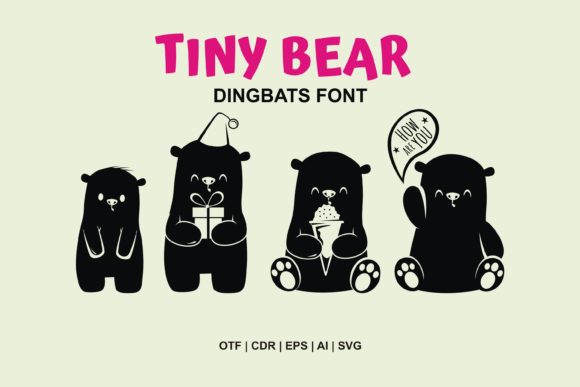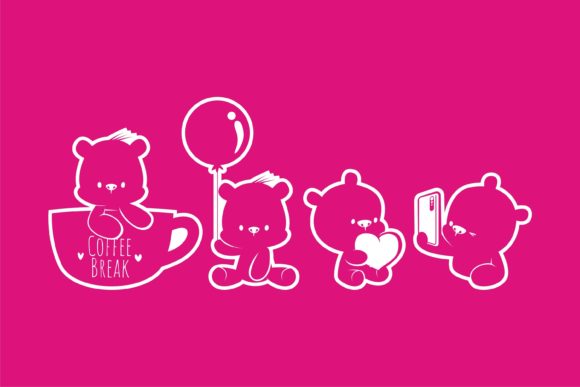
Tiny Bear Font
About Tiny Bear Font
“Tiny Bear” is an incredibly unique and interesting dingbats font that brings a touch of whimsy and cuteness to your designs. With its adorable bear-themed symbols, this font is a great choice for various projects aimed at children, including storybooks, children’s games, apparel designs, nursery room items, and more.
The charm of “Tiny Bear” lies in its collection of bear symbols and illustrations. These cute and endearing bear characters can add a playful and friendly atmosphere to your designs. Whether you’re creating a children’s book, designing a game interface, or developing merchandise for kids, “Tiny Bear” can help create a visual identity that resonates with young audiences.
The versatility of “Tiny Bear” allows it to be used in a wide range of applications. For storybooks, you can use the dingbats font to create decorative elements, chapter headings, or even incorporate the bear symbols into the illustrations themselves. In children’s games, the font can be used to design icons, buttons, or character representations that engage and entertain young players.
When it comes to apparel designs, “Tiny Bear” can add an adorable touch to children’s clothing, accessories, or even baby shower invitations. The cute bear symbols can be applied as decorative elements or used to create patterns and motifs. In nursery room items, such as wall art or mobiles, “Tiny Bear” can contribute to a warm and welcoming environment.
To make the most of “Tiny Bear,” consider combining it with soft and pastel colors that evoke a sense of warmth and tenderness. Additionally, integrating the bear symbols with other relevant elements, such as trees, flowers, or other animals, can create cohesive and visually appealing designs.
In summary, “Tiny Bear” is an incredibly unique and interesting dingbats font that is well-suited for various children-centric projects. Its adorable bear-themed symbols make it a great choice for storybooks, children’s games, apparel designs, nursery room items, and more. With its whimsical charm, “Tiny Bear” adds a touch of cuteness and playfulness to your designs, capturing the hearts of both children and adults alike.